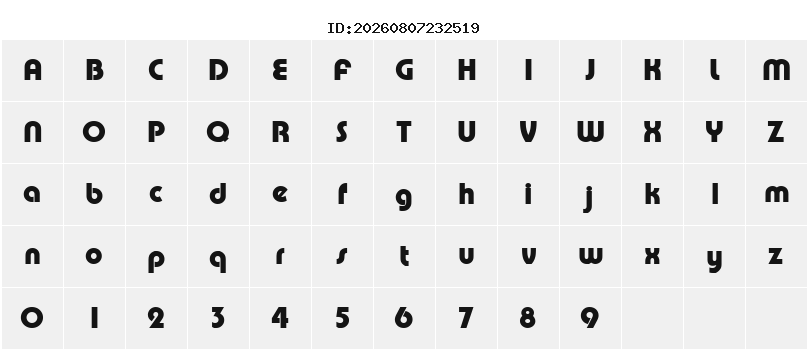
Pump Demi Bold LET Preview
About Pump Demi Bold LET.ttf
Pump Demi Bold LET.ttf is a modern, elegant sans-serif font designed for ultimate readability and visual harmony. Perfect for branding, headlines, web design, and print materials.